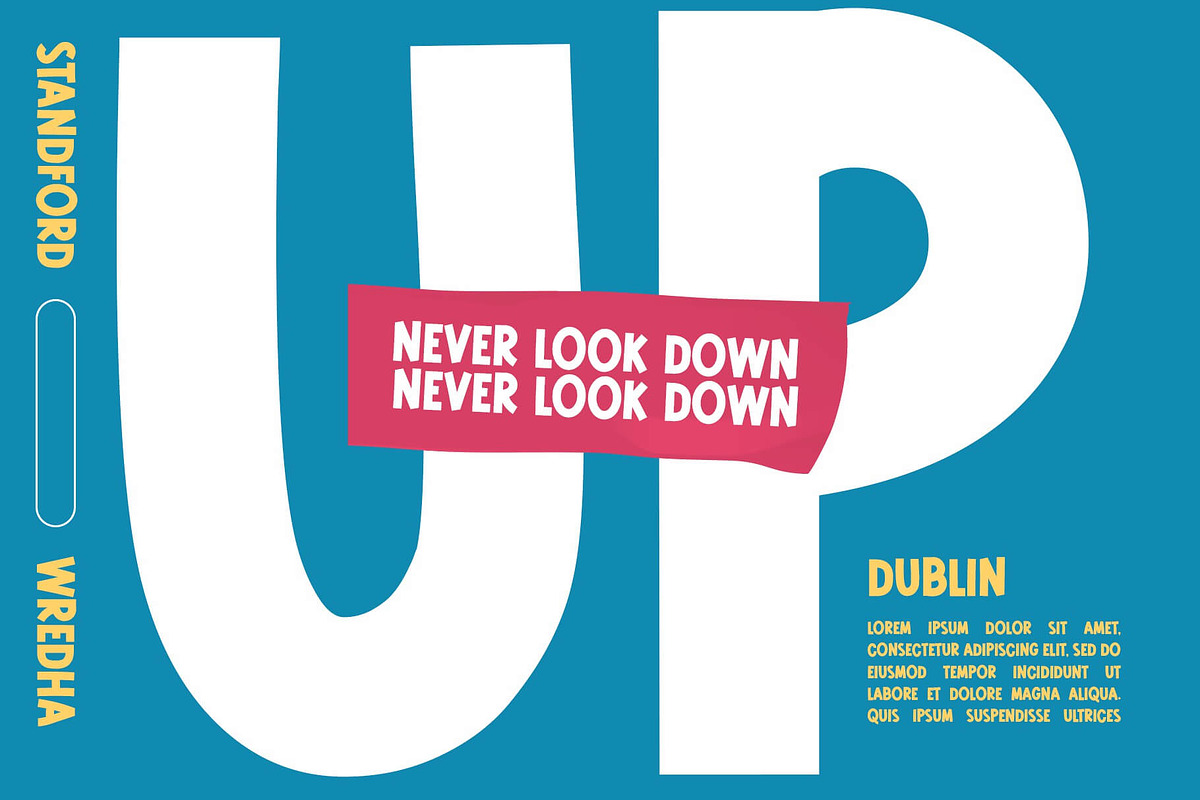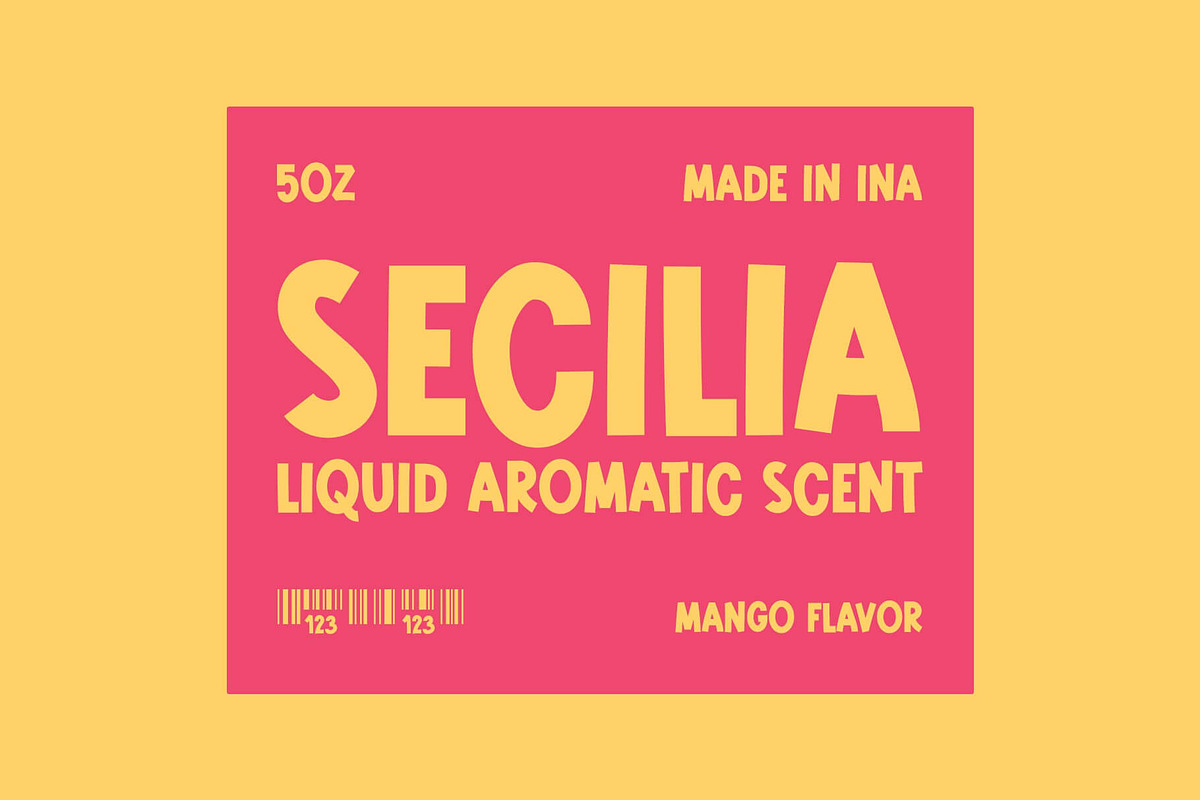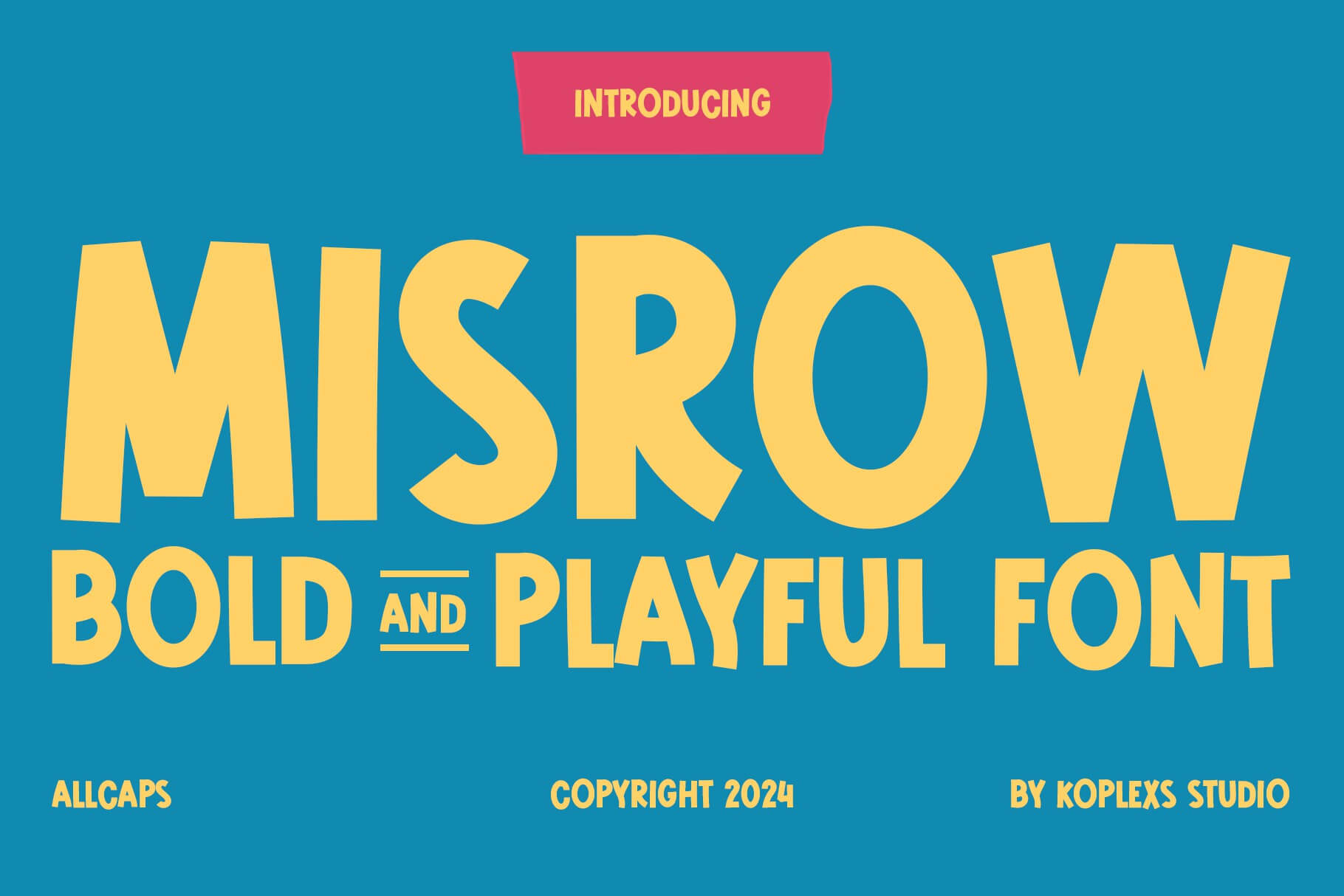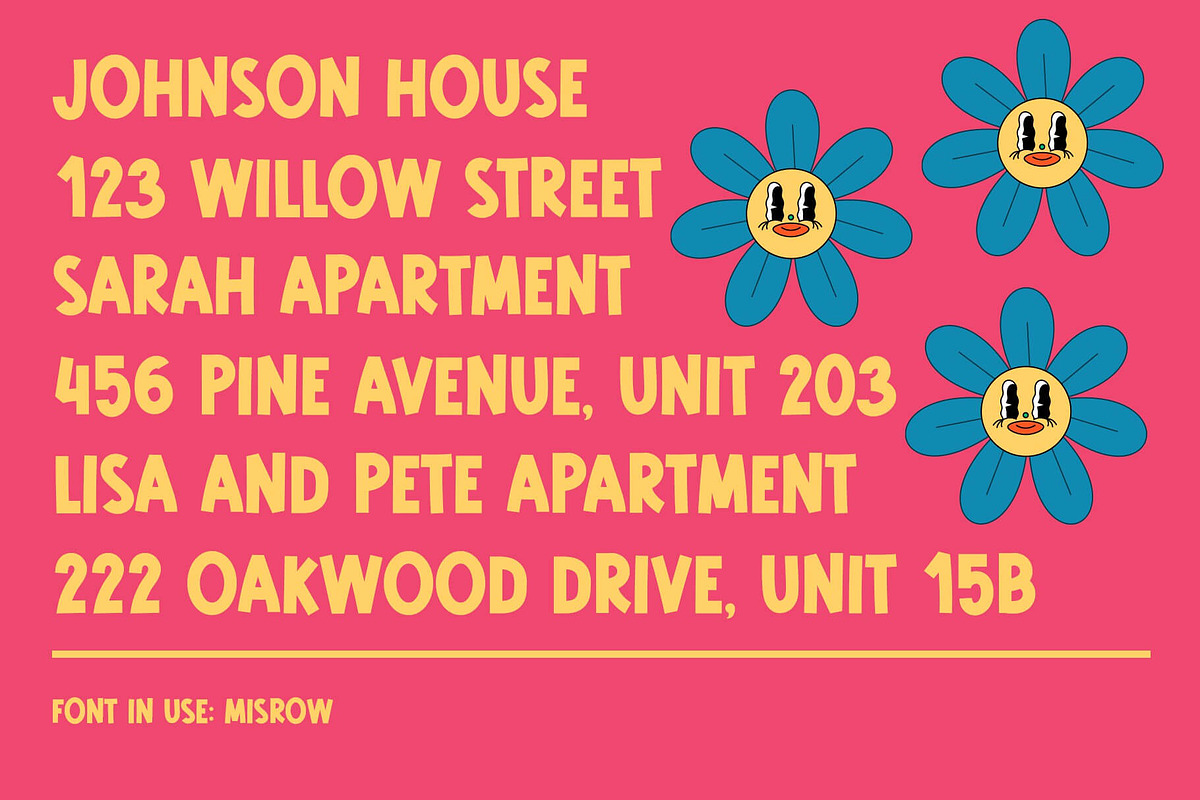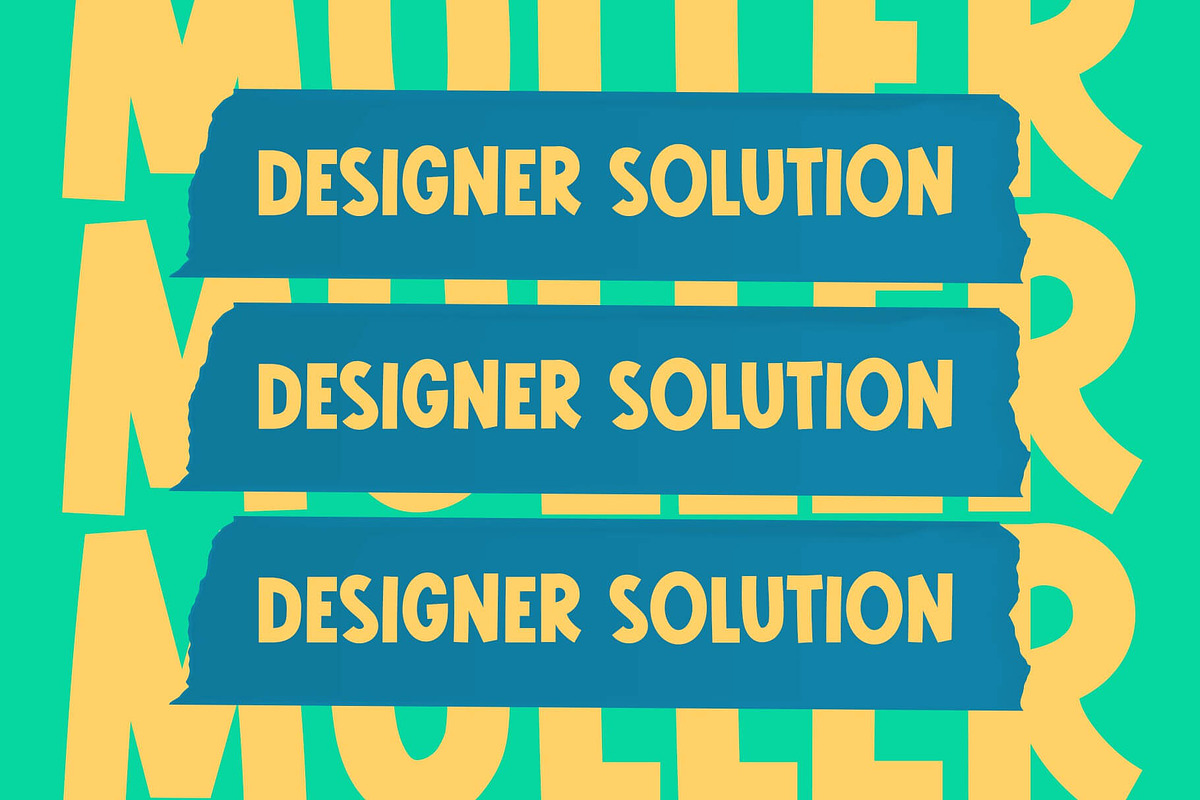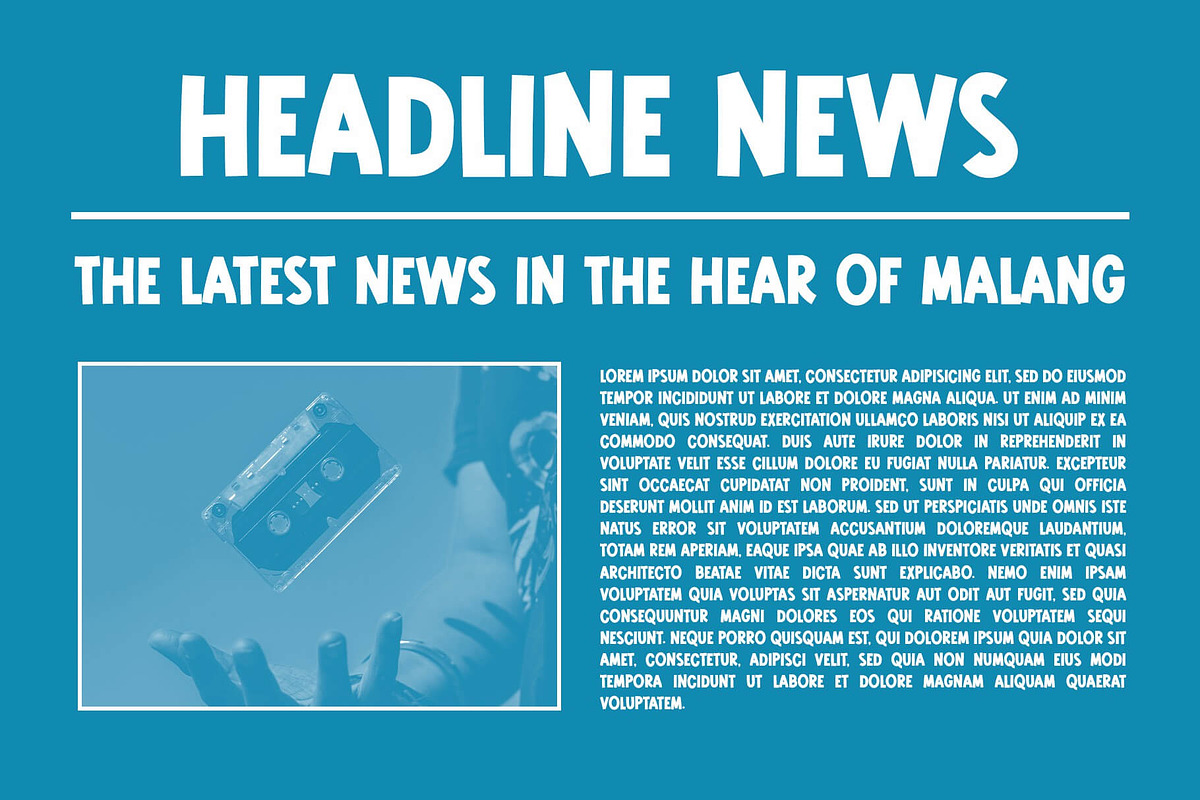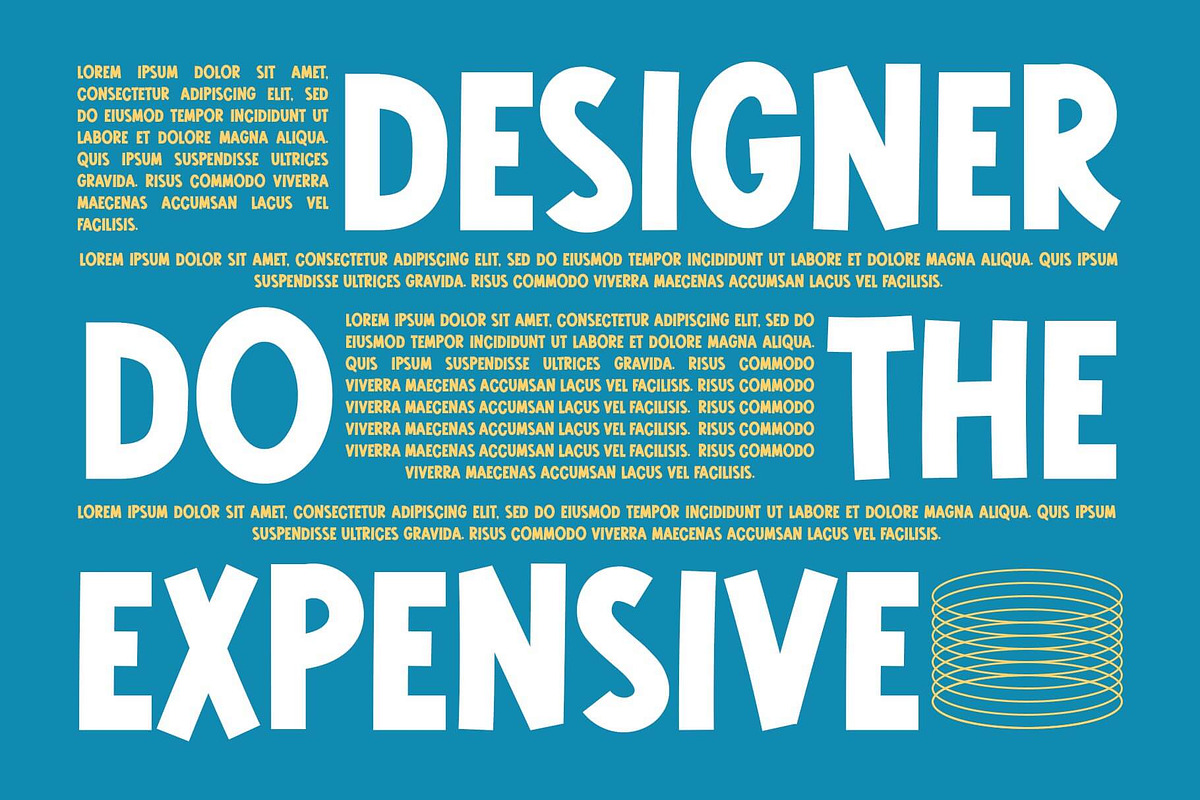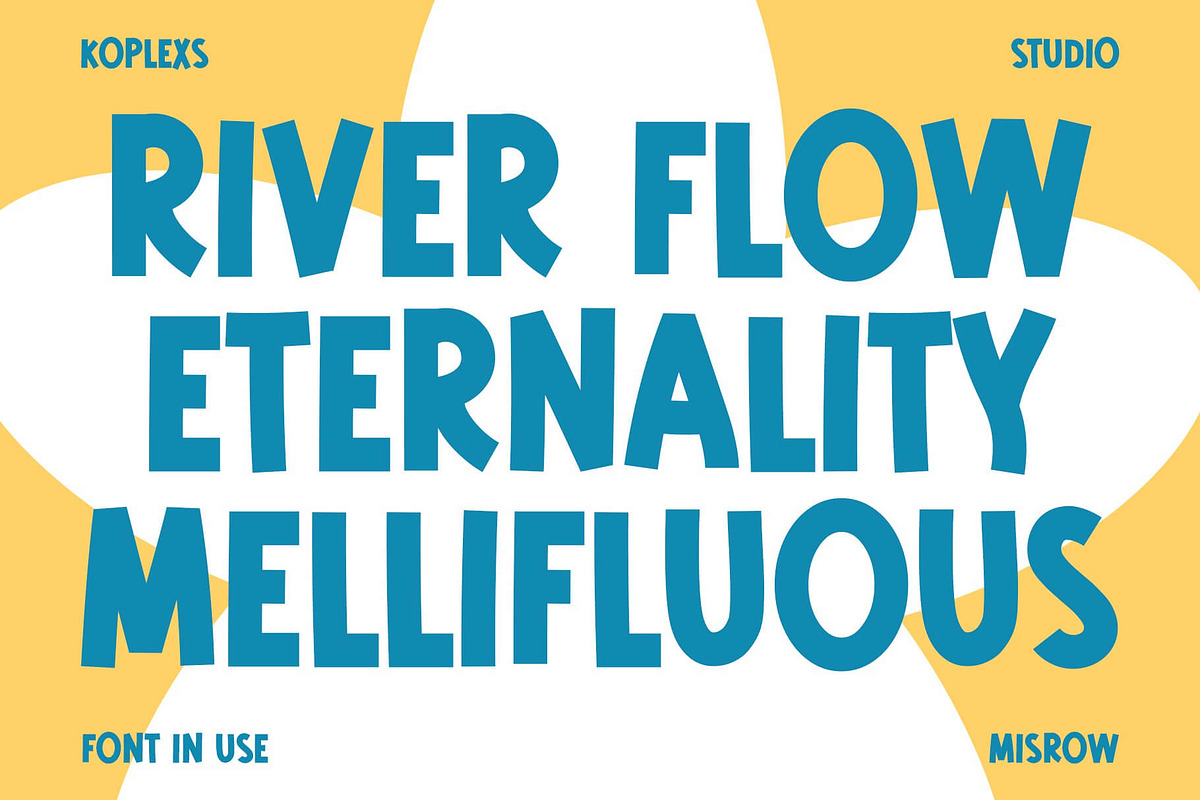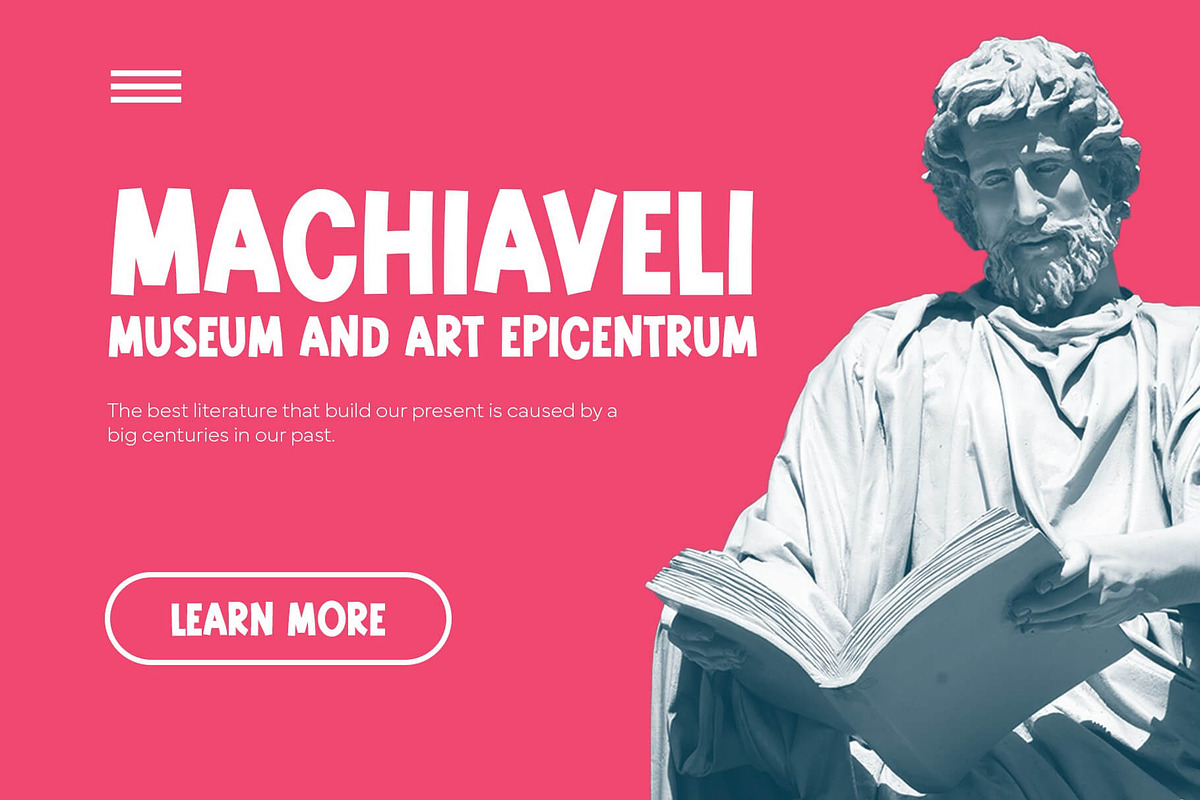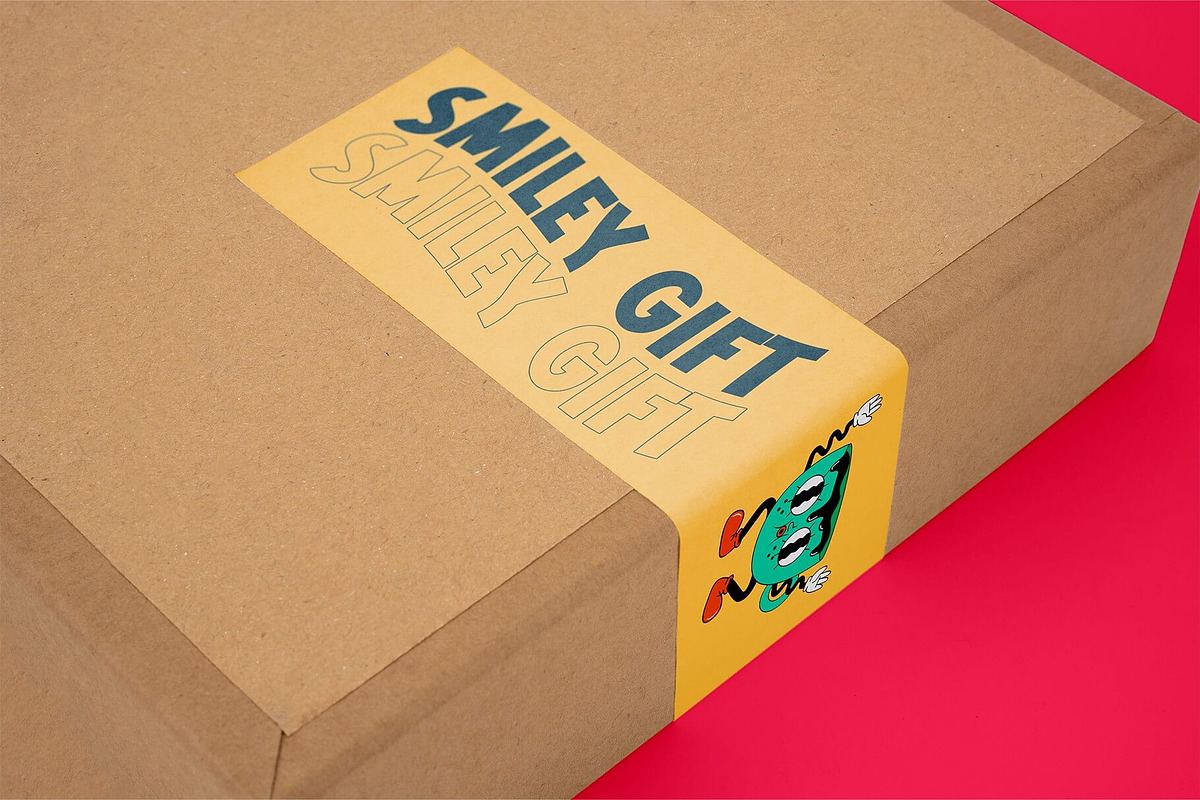
Misrow - Bold Playful Display Font
Misrow Bold Playful Sans Serif Display Font
Introducing "Misrow Bold Playful Sans Serif Display Font" – Where Bold meets Playful in a harmonious dance of creativity! Elevate your design projects with this unique and versatile typeface that effortlessly balances sophistication with a dash of whimsy.
Unleash the power of Misrow Bold to infuse your creations with a distinctive personality. Its clean lines and bold strokes make a bold statement, while the playful nuances add a touch of charm that captures attention. Whether you're working on branding, logos, headlines, or marketing materials, Misrow Bold ensures your message is conveyed with impact.
This font is not just a typeface; it's a design companion that adapts seamlessly to various applications. From eye-catching social media graphics to attention-grabbing posters and packaging, Misrow Bold is your go-to choice for making a lasting impression. Elevate your website design, create memorable presentations, or add a touch of flair to your print materials – the possibilities are limitless.
- Bold Impact: Misrow Bold commands attention with its strong and impactful letterforms, ensuring your message stands out in any context.
Playful Elements: Infuse a sense of fun and creativity into your designs with Misrow Bold's playful details, making it suitable for a wide range of projects.
Versatility: Whether it's digital or print, Misrow Bold adapts effortlessly, ensuring a cohesive and professional look across various mediums.
Easy to Read: Despite its bold and playful nature, Misrow Bold remains highly legible, making it a practical choice for both short headlines and longer text blocks.
Modern Aesthetic: Stay on-trend with the modern and chic aesthetic of Misrow Bold, giving your designs a fresh and contemporary feel.